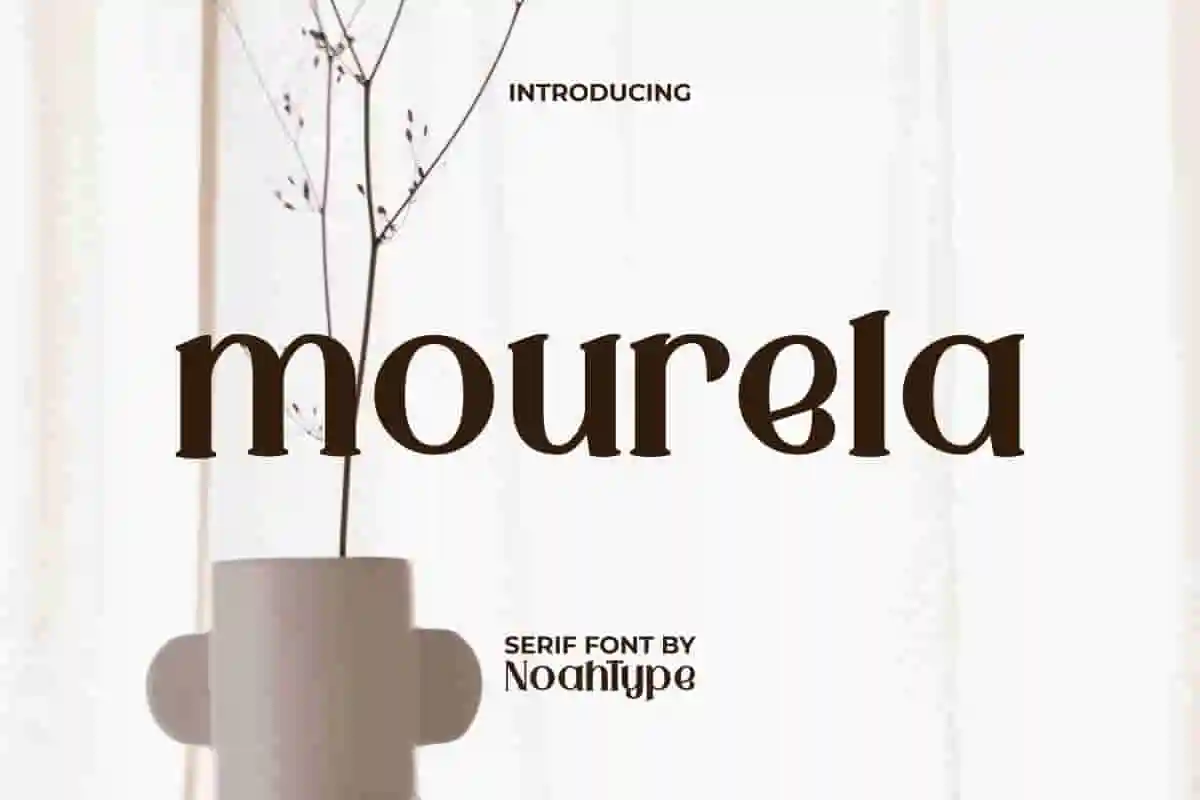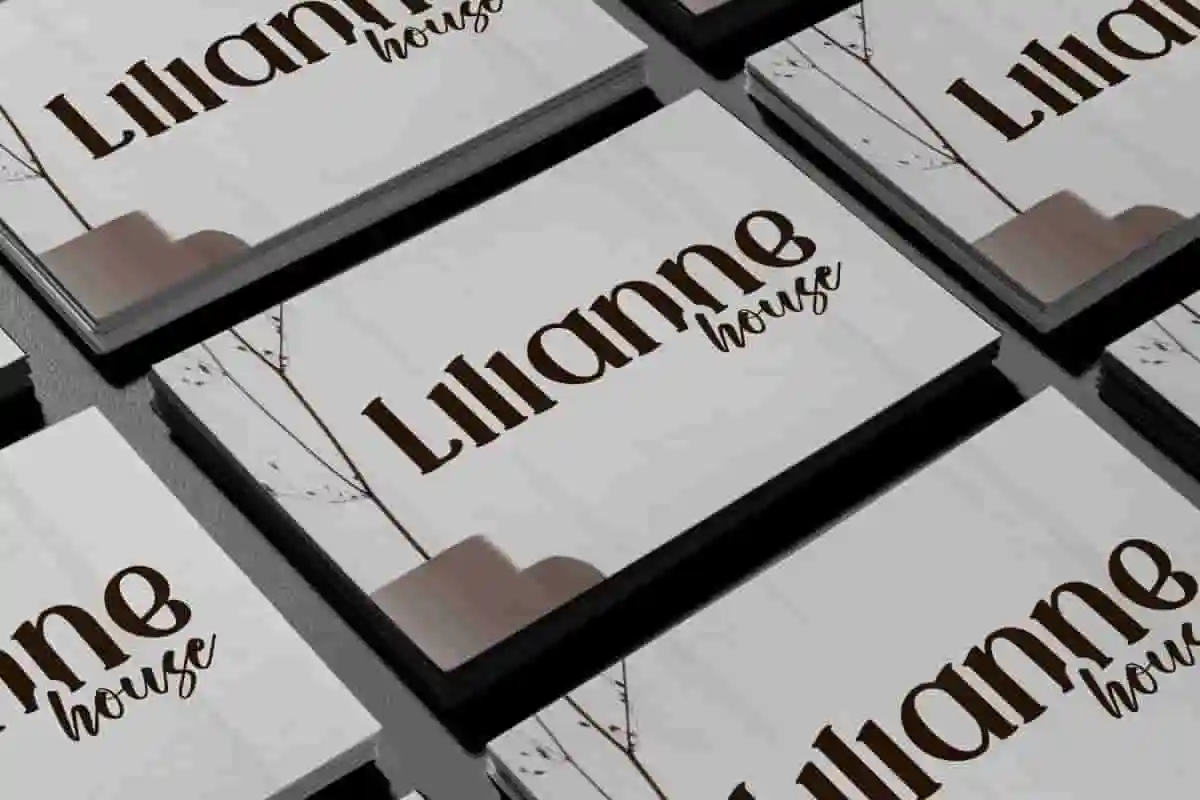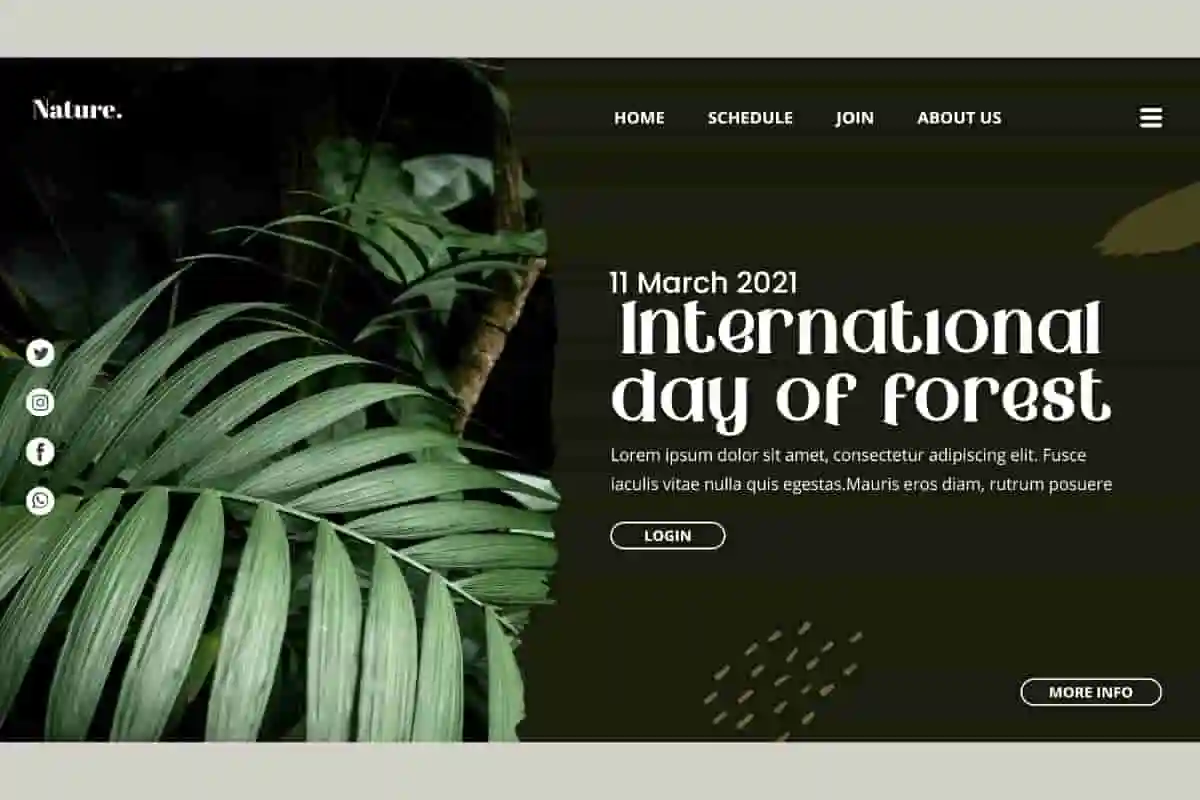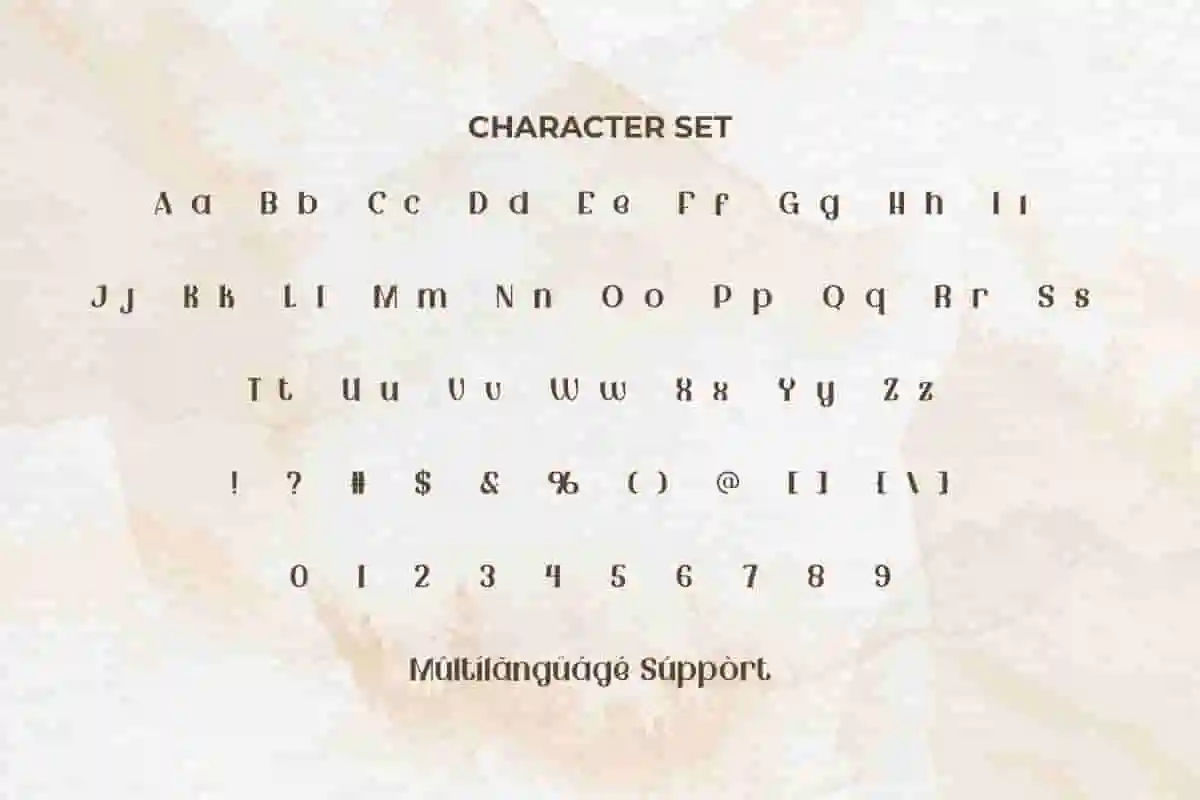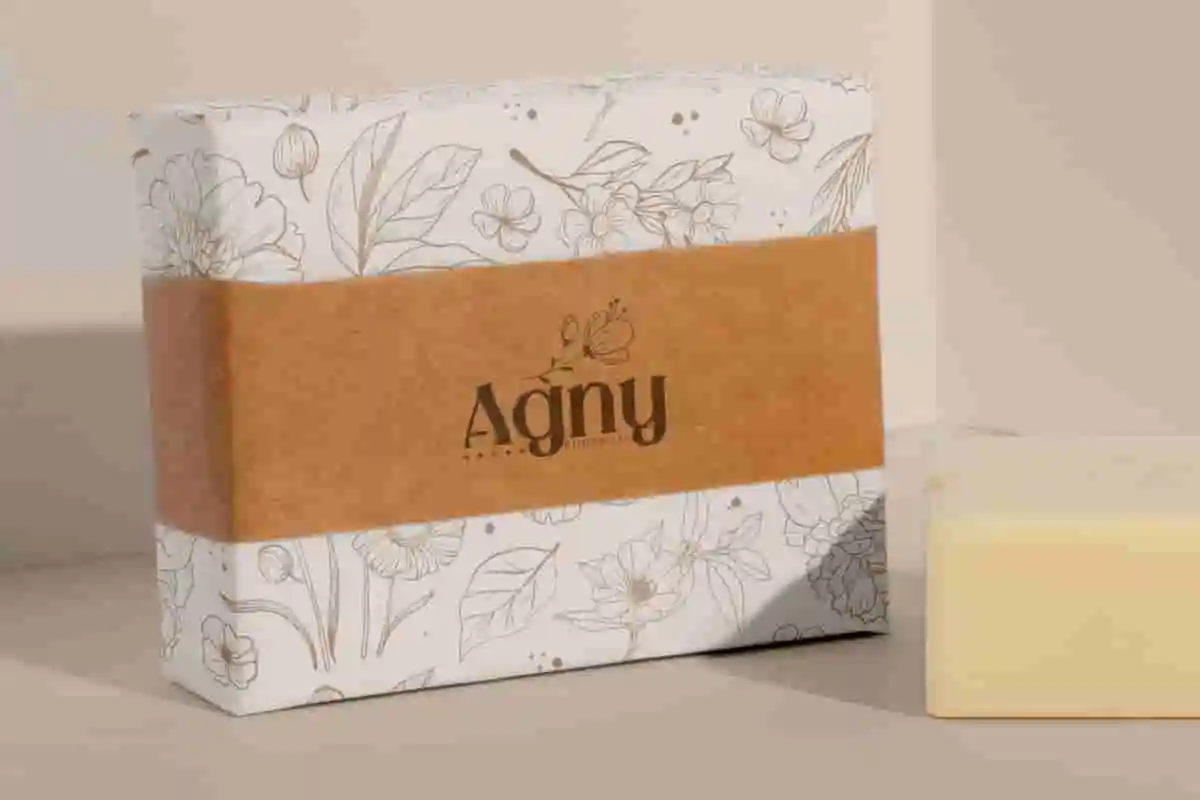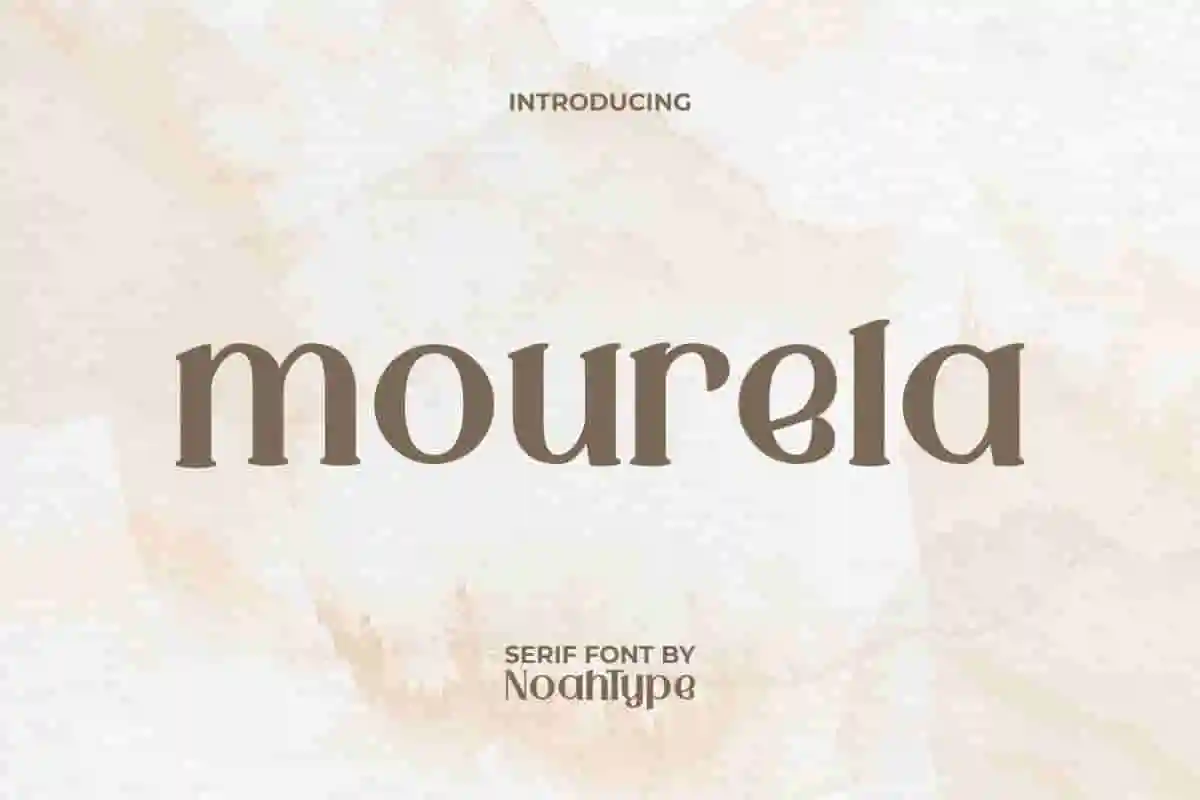
Mourela Font is a unique classic inspired serif display font. This font has thick and short letters, making it look attractive and authentic. It will be perfect for any designs, such as brand image, cover, custom design, invitation, label, marketing material, poster, product packaging, quote, signage, stationery, web, and many more!
Mourela Font includes full set of Uppercase and Lowercase Basic Characters, Numerals, Punctuation, and Symbol. This font has beautiful characters and will be perfect choice for many industries, such as advertising, beauty product, cafe, fashion, home furniture, jewelry and accessories, perfume, printing, publishing, restaurant, etc.